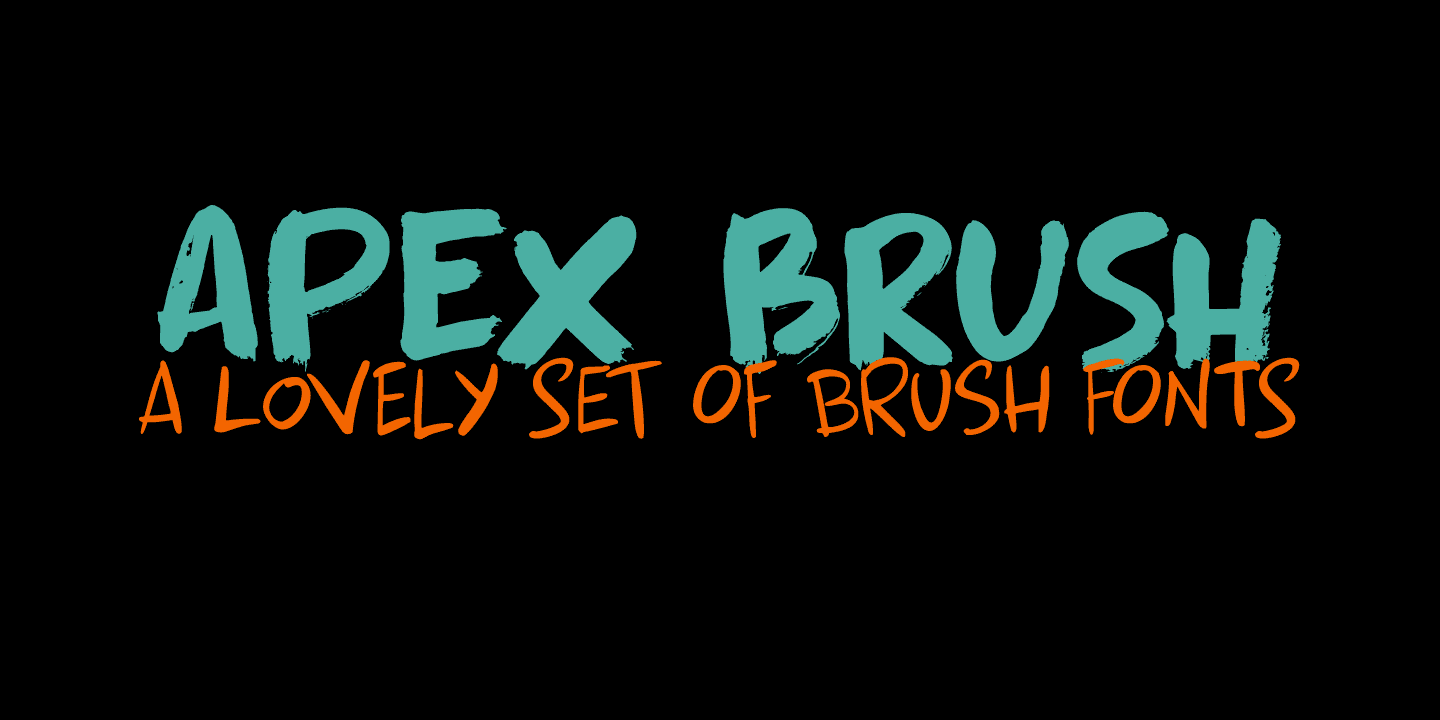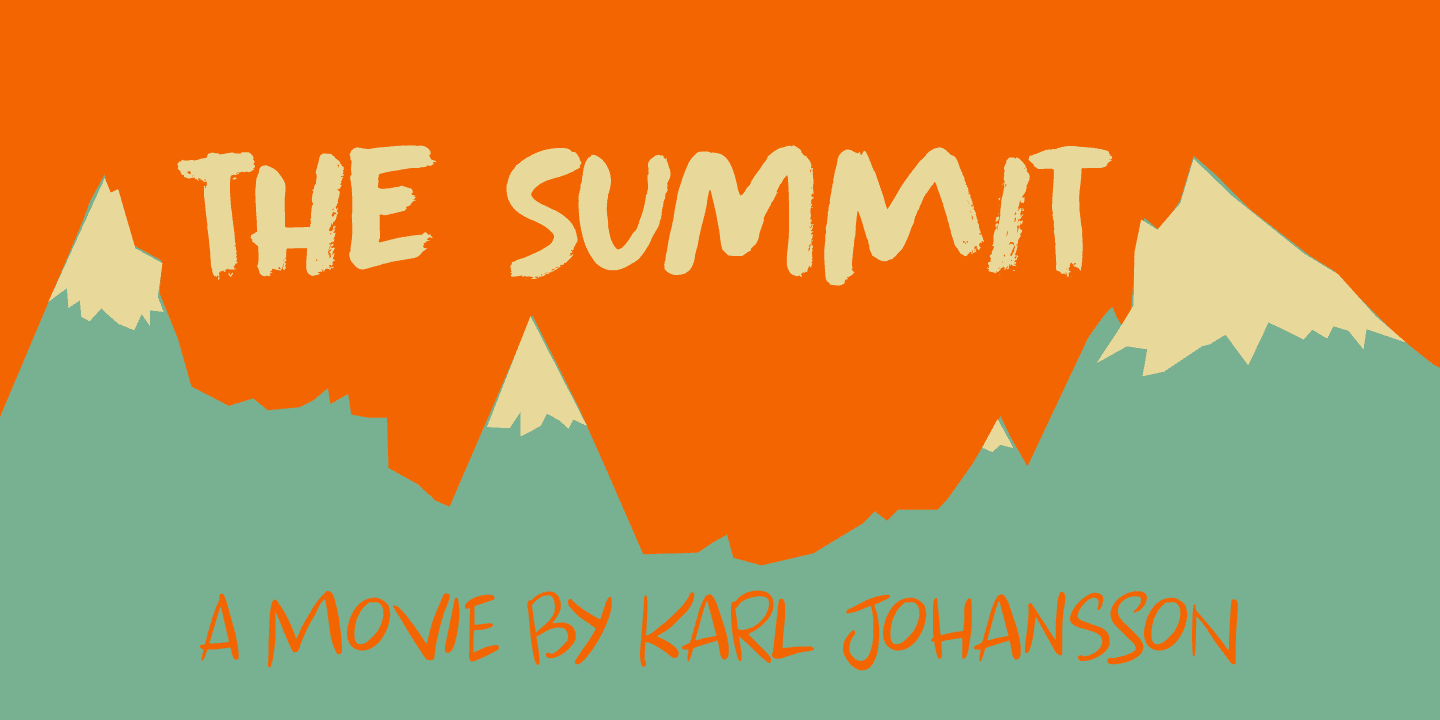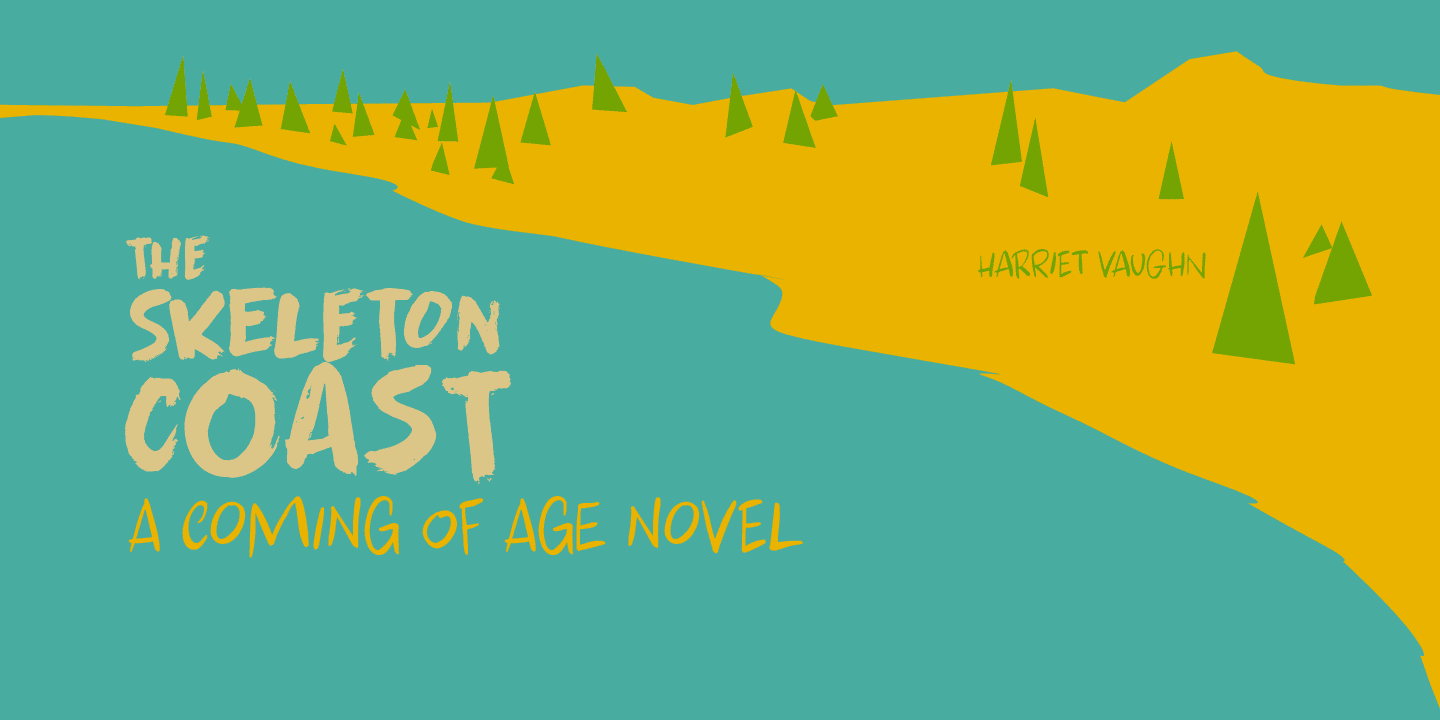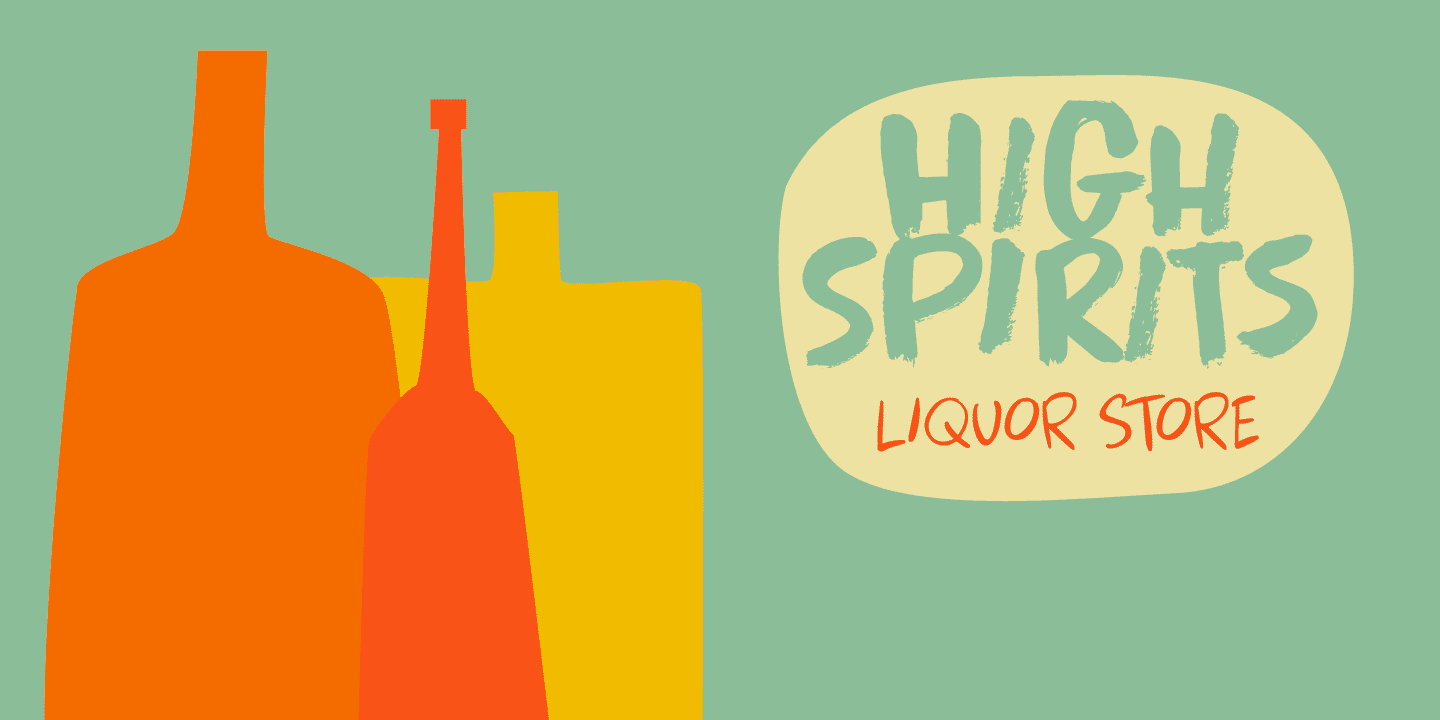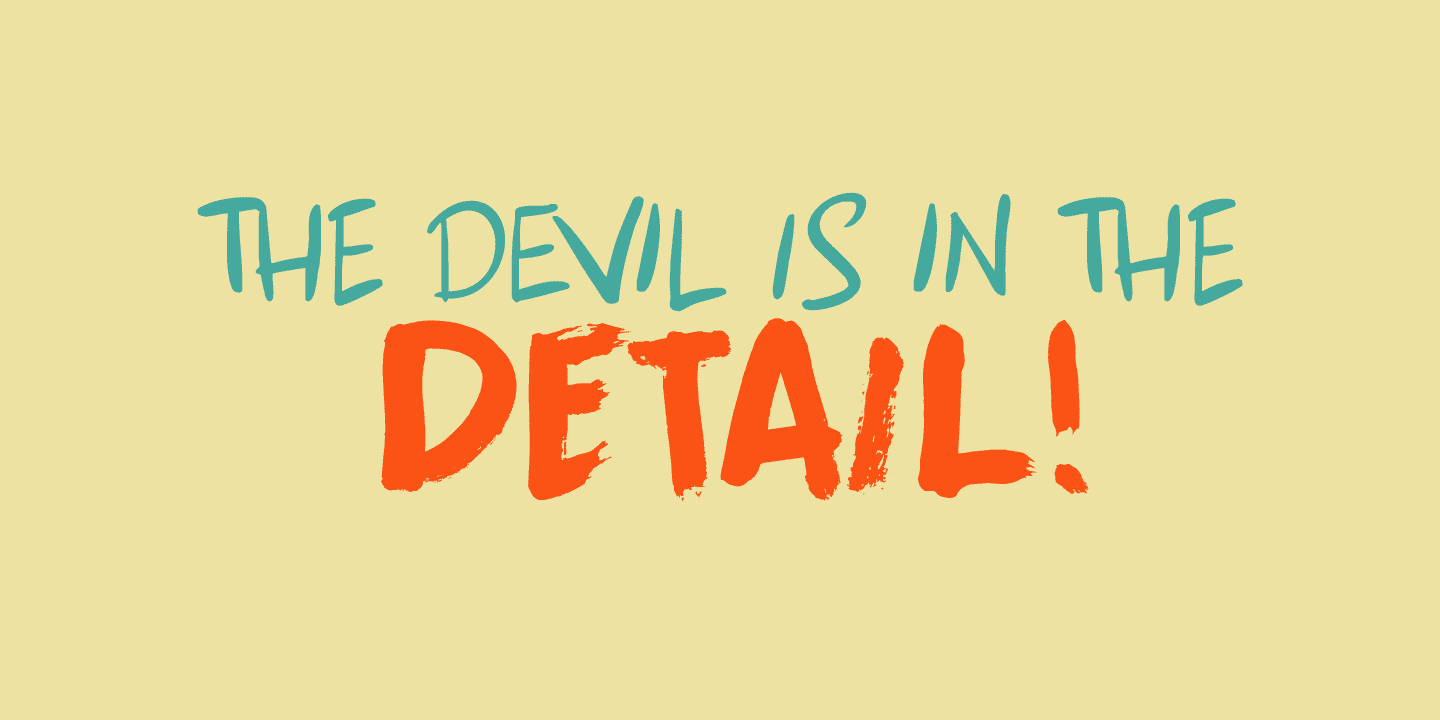
I like playing around with brushes and Chinese ink. I always have some kind of idea of what the final design should look like, but once it’s done, it never ever looks like what I had in mind. Apex Brush is one of those designs: it started off as a few brush strokes, but before I knew it, I had a really nice set of matching brush fonts!
Use it for any design that needs a bit of rough, a splash of ink and a pinch of rebel.